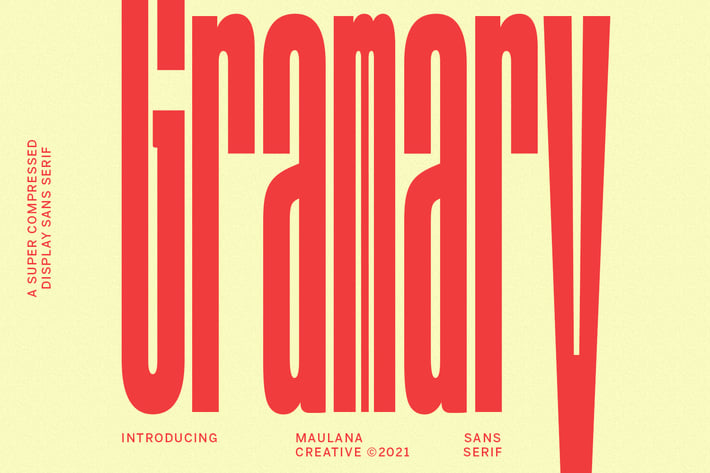
Gramary Compressed Sans Font
Gramary is a Super Compressed display font. With bold weight stroke, upright and fun character with a bit of ligatures. To give you an extra creative work. Gramary font support multilingual more than 100+ language. This font is good for logo design, Social media, Movie Titles, Books Titles, a short text even a long text letter and good for your secondary text font with script. Make a stunning work with Gramary font.